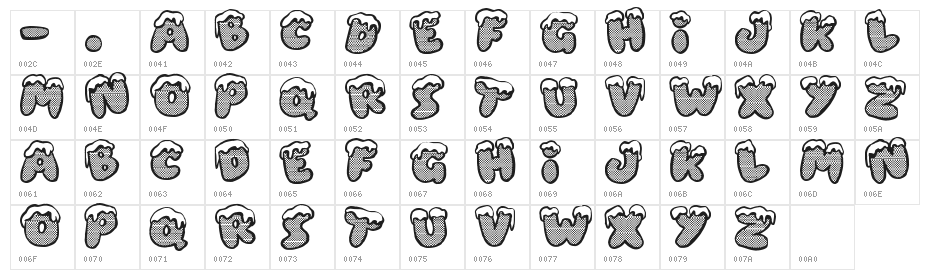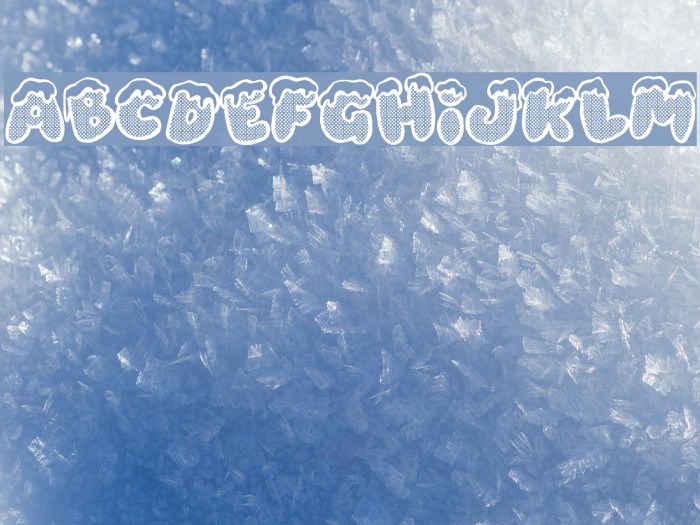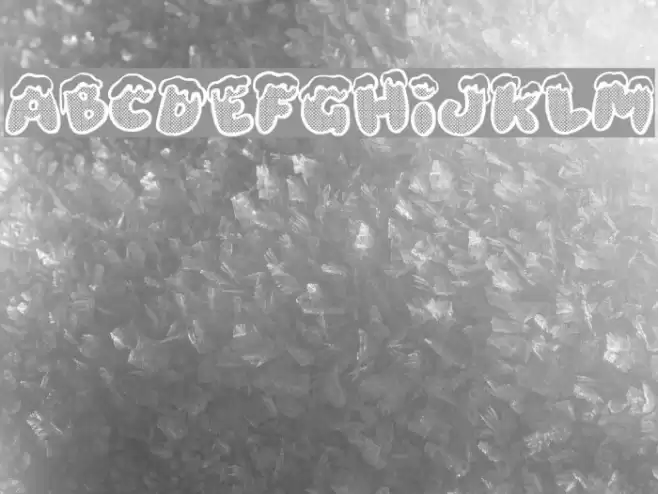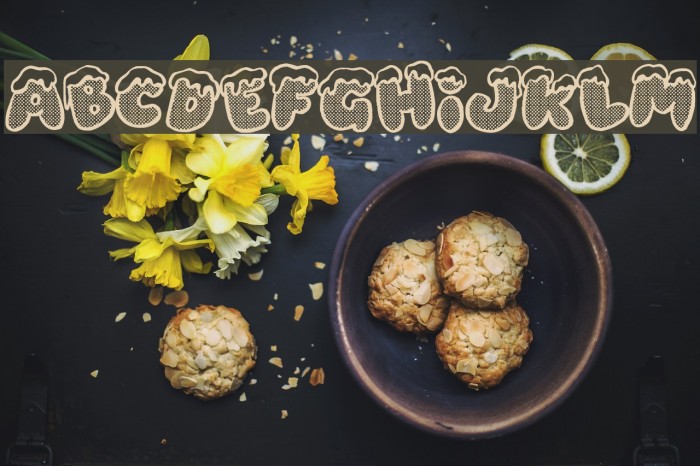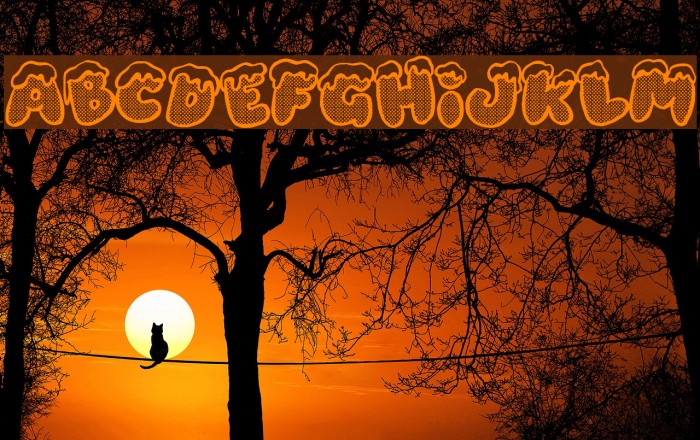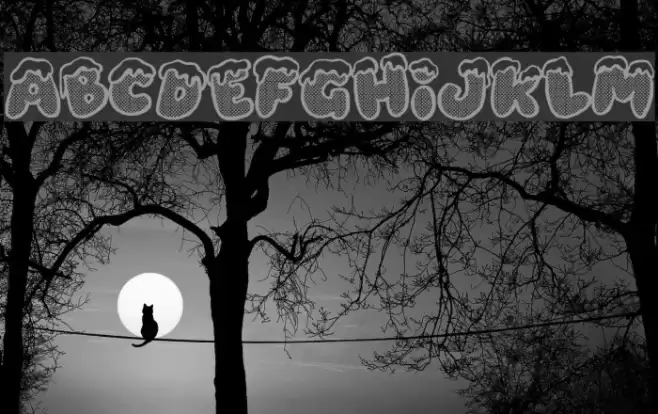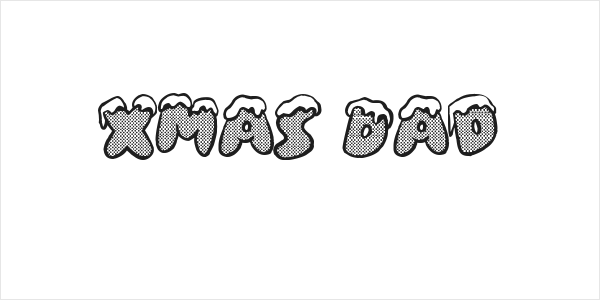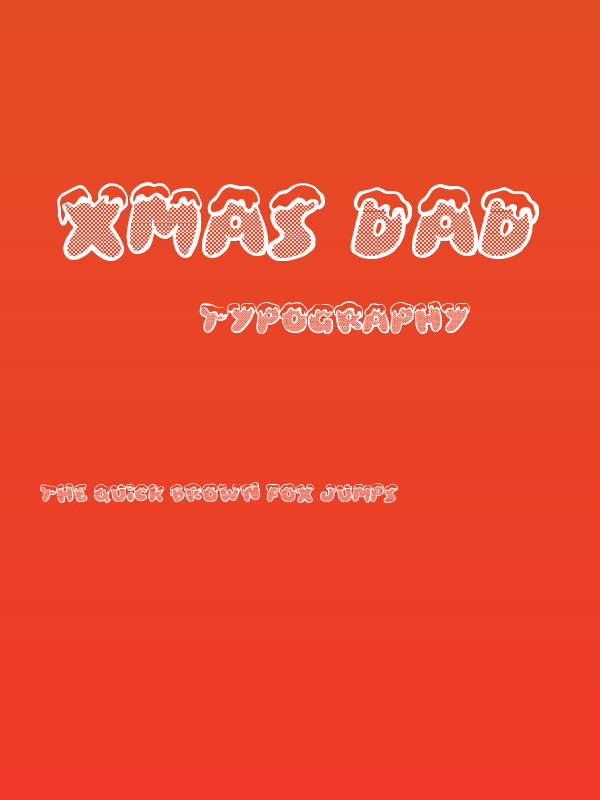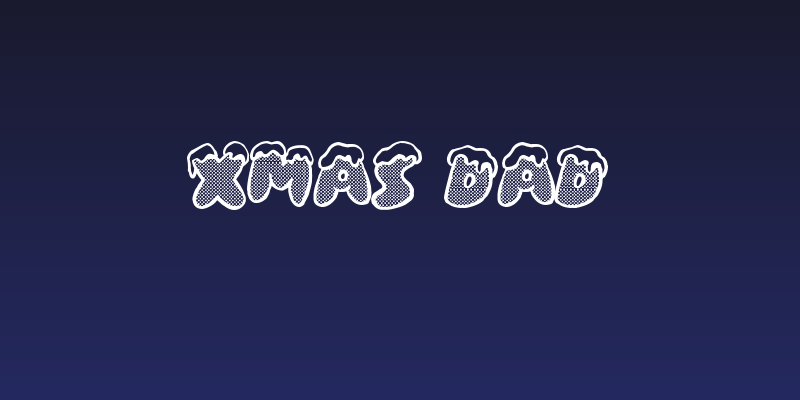
Xmas Dad Font
Xmas Dad Description
This playful and festive font features bold, uppercase letters adorned with a snowy, frosty texture, reminiscent of a winter wonderland. Each character is outlined with a thick black line, enhancing its visibility and adding a cartoonish charm. The interior of the letters is filled with a dotted pattern, giving a sense of depth and texture. The whimsical design evokes a sense of holiday cheer, making it perfect for seasonal projects. The font's unique style is both eye-catching and fun, ideal for capturing the spirit of Christmas and winter festivities.
Proposed ProjectsIdeal for holiday cards, festive banners, children's books, and winter-themed posters.